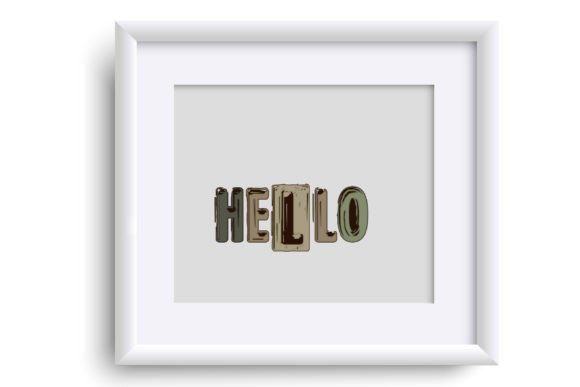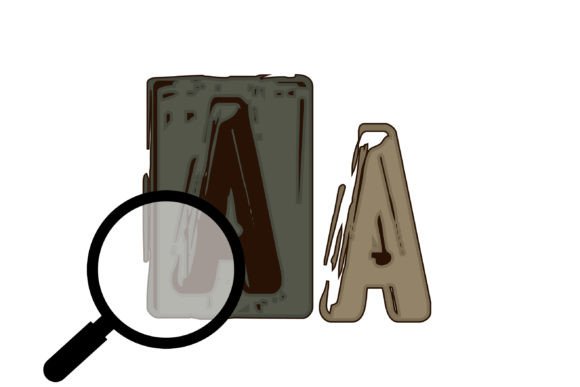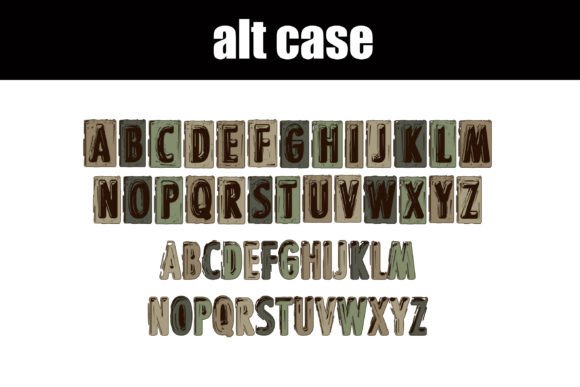
Introduction to Fifties Imprint Font
This full-color font features old school lettering that looks like imprinted metal in a khaki/millitary color palette.
There is an alt version of each letter in a different color that you can access through your system character map OpenType full-color (SVG) fonts are installed like any normal .
Key Features of Fifties Imprint Font